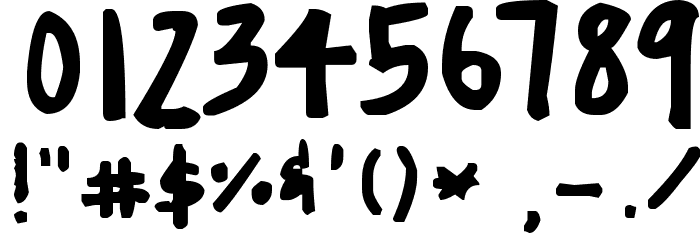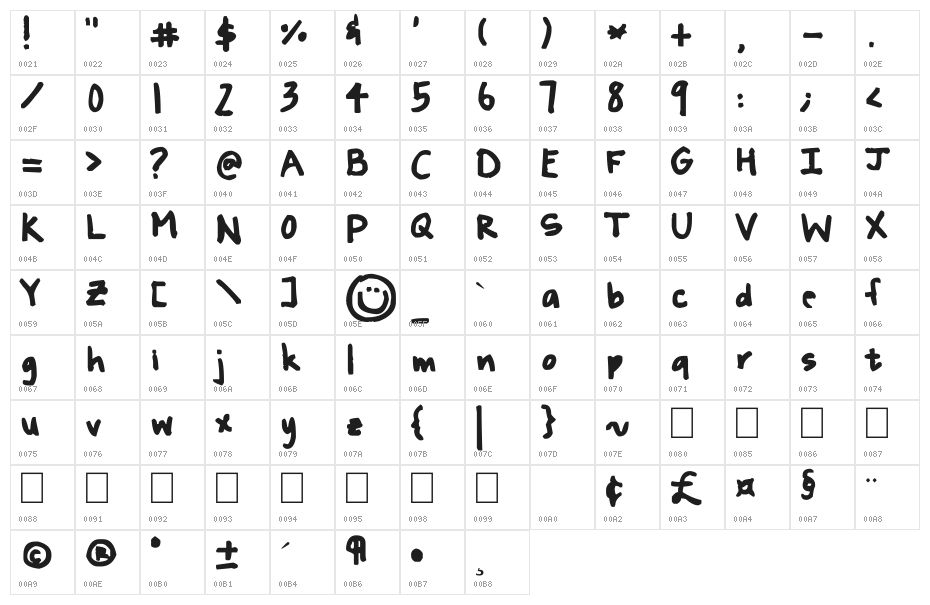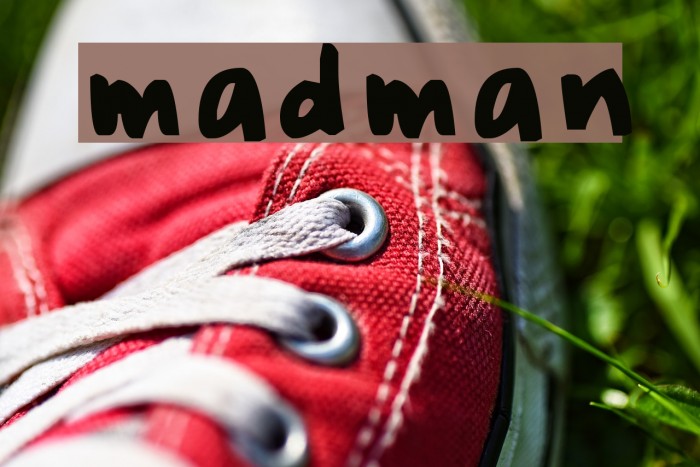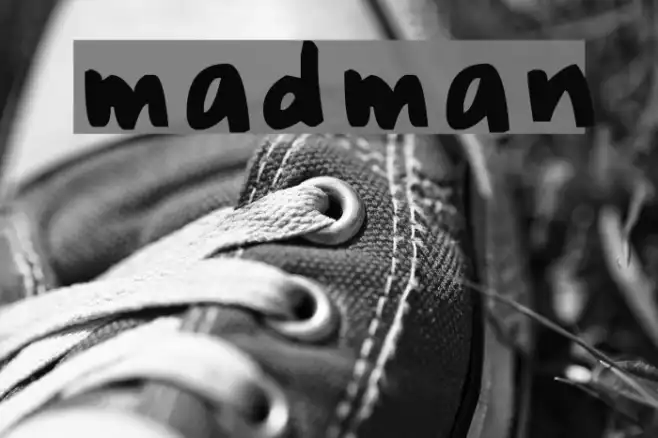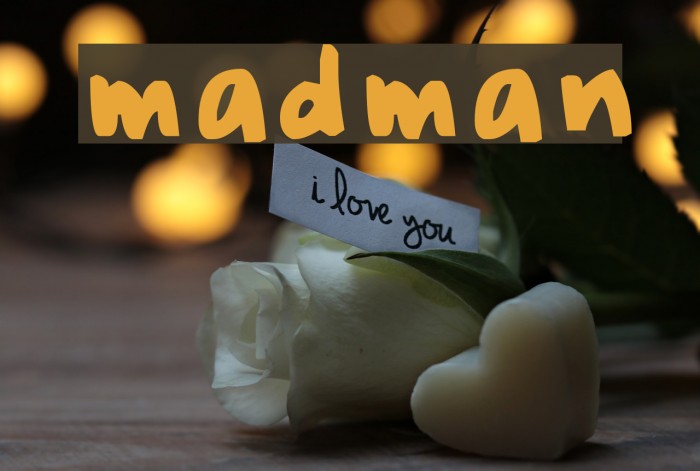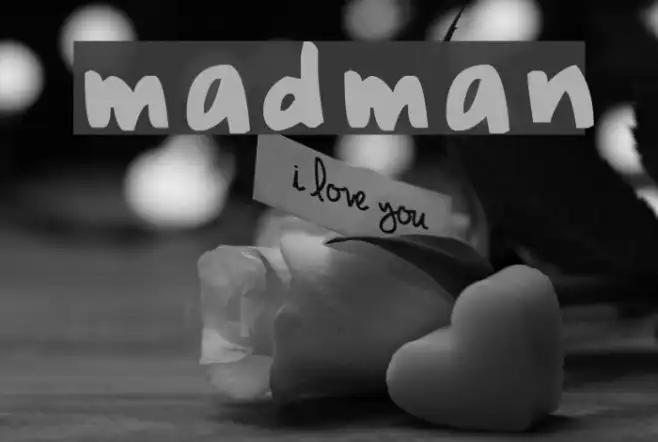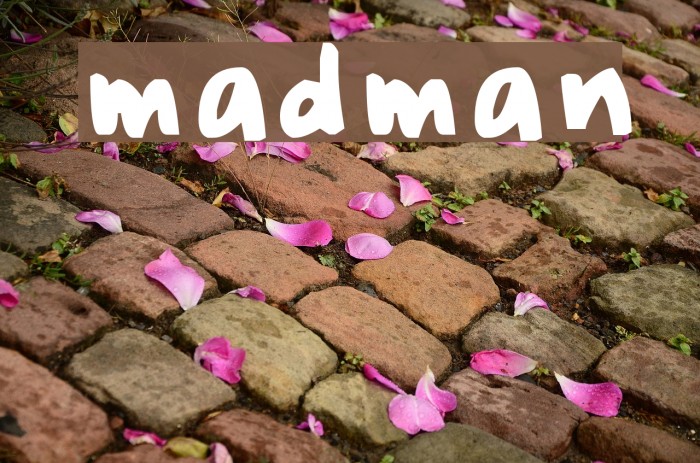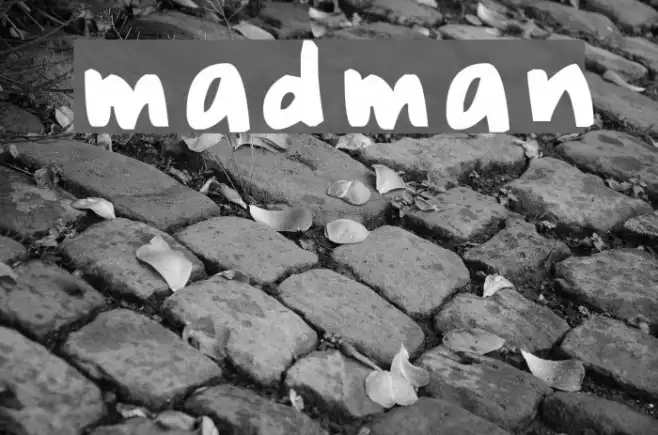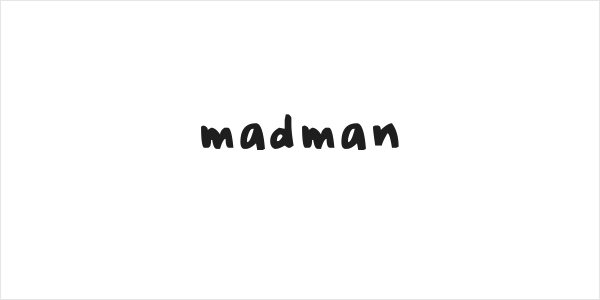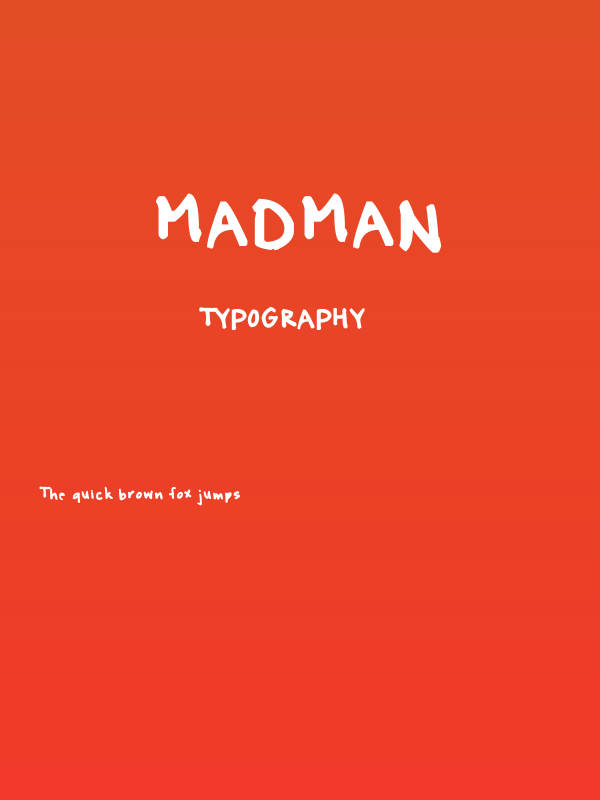
madman Font
madman Description
This font exhibits a playful and bold handwritten style, characterized by its irregular and dynamic strokes. The letters have a casual, almost whimsical appearance, with varying thickness that adds to its informal charm. The uppercase and lowercase letters are distinct yet maintain a cohesive look, while the numerals and special characters follow the same energetic style. The overall design is reminiscent of a marker or brush pen, making it suitable for projects that require a personal touch or a sense of spontaneity.
| Proposed Projects | Ideal for children's books, comic strips, casual branding, and creative posters. |